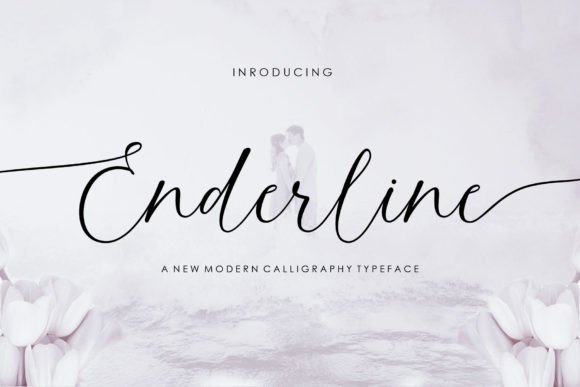
Introducing Enderline Script, the enchanting handwritten typeface that will elevate your designs to an ethereal realm of beauty. With its graceful curves and playful strokes, Enderline Script flows like a gentle stream, leaving a trail of elegance and charm in its wake.
Crafted with precision, each character exudes a unique personality, adding a personal touch to your creative projects. Whether you're designing heartfelt logos, captivating social media posts, eye-catching advertisements, or sophisticated business cards, Enderline Script will bring a touch of magic to your words.
Immerse yourself in a world of boundless creativity with Enderline Script. Let your imagination take flight as you design enchanting product labels, stunning packaging, and captivating book covers. This versatile font family is your gateway to a realm of endless possibilities, where your designs will shine brighter than ever before.
Express your individuality and captivate your audience with Enderline Script. Its enchanting allure will transport them to a world of wonder and inspiration, making your designs truly unforgettable. Embrace the power of Enderline Script and unveil the boundless creativity within you.